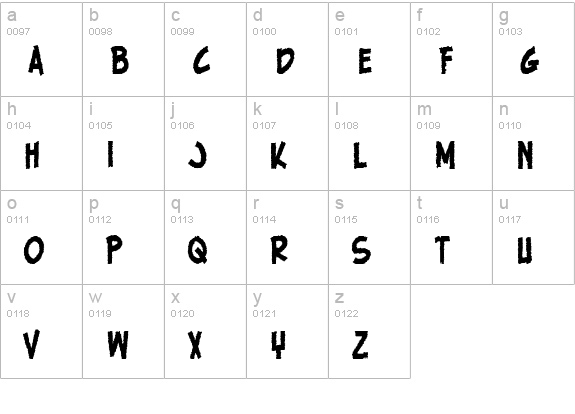
Introducing Holy Mackerel! Crispy font, a delightful and whimsical typeface that will add a touch of fun to your design projects. This font features crisp lines and charming curves, making it perfect for a wide range of applications, from branding to social media posts. With its playful yet stylish appearance, Holy Mackerel! is sure to capture attention and leave a lasting impression. The best part? This fantastic font is available for free download at FontsMarket.com. Don't miss out on the opportunity to enhance your designs with Holy Mackerel! Crispy font today. Download it now and let your creativity soar!